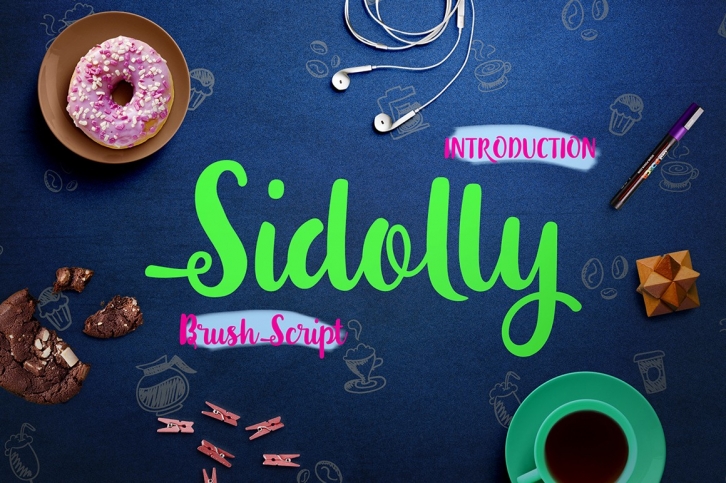
Sidolly is a beautiful font that was designed by Vero&Scy. It's a great choice for designers and creatives who need such a font. It was released on February 1, 2017 and the file size is 1.47 MB. Sidolly may give a more youthful, expressive and casual look to your project. It is a very beautiful, refined, elegant, and high-quality font.